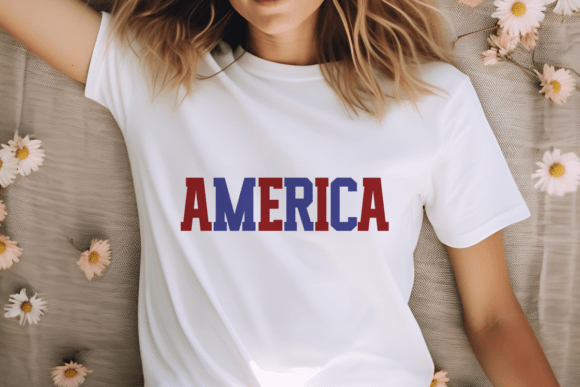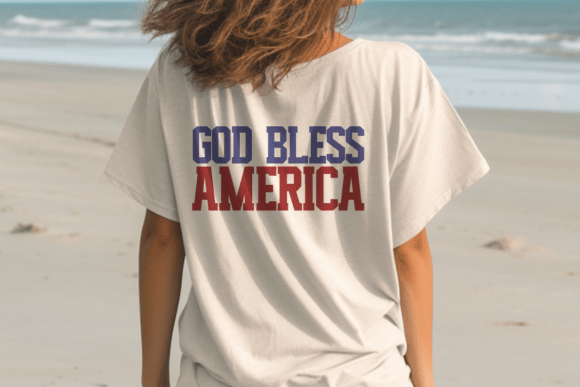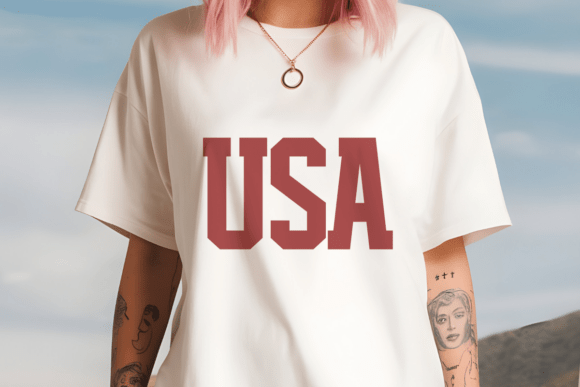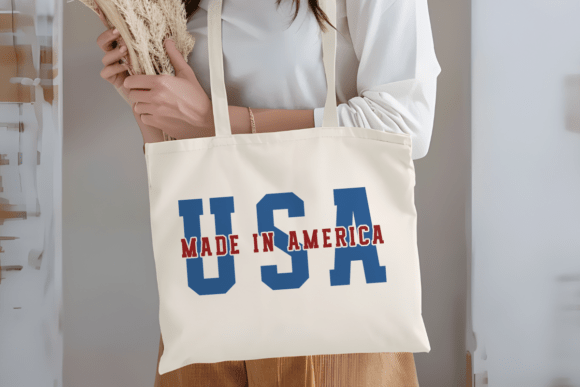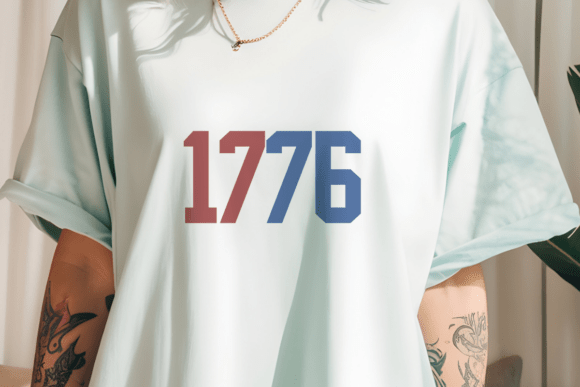
Introducing Fireworks Font: The Ultimate Patriotic Slab Serif for Your Creative Projects
Are you looking for a font that exudes confidence, patriotism, and a touch of modern flair? Look no further than the Fireworks Font, a bold and eye-catching slab serif font designed to elevate your creative projects. With its strong lines, square edges, and all-caps style, this font is perfect for making a statement in various applications, from print-on-demand items to DIY crafts.
What Makes Fireworks Font Stand Out?
Fireworks Font is a carefully crafted typeface that embodies the spirit of American patriotism, making it an ideal choice for festive events, military themes, and western-style layouts. Its distinctive features include:
- Bold and sturdy design: Fireworks Font boasts a robust and attention-grabbing appearance, perfect for headlines, titles, and display typography.
- Square edges and clean lines: The font’s geometric shape and smooth lines ensure a crisp, high-quality look that works well in both digital and print formats.
- All-caps style: The font’s uppercase design creates a sense of grandeur and authority, making it suitable for titles, slogans, and promotional materials.
Perfect for Print-on-Demand and DIY Projects
Fireworks Font is an excellent choice for various print-on-demand items, such as:
- 4th of July t-shirts and apparel: Add a patriotic touch to your Independence Day designs with this bold and festive font.
- Mugs and water bottles: Create eye-catching drinkware with Fireworks Font, perfect for commemorating special events or everyday use.
- Banners and posters: Make a statement with large-format prints, ideal for advertising, promoting events, or decorating your workspace.
Beyond print-on-demand, Fireworks Font is also suitable for:
- Sublimation projects: Create vibrant and durable designs for sublimation printing on materials like ceramics, glass, and fabric.
- Cricut cutting machines: Use Fireworks Font to create custom vinyl decals, iron-on designs, and paper crafts with your Cricut machine.
- DIY crafts and scrapbooking: Add a touch of Americana to your handmade projects, such as cards, invitations, and journal pages.
Tips for Using Fireworks Font Effectively
To get the most out of Fireworks Font, consider the following tips:
- Pair with complementary fonts: Combine Fireworks Font with contrasting fonts to create visual interest and hierarchy in your designs.
- Experiment with colors: Try Fireworks Font with bold, bright colors to amplify its patriotic and festive vibe.
- Use for display typography: Take advantage of Fireworks Font’s bold design and use it as a statement piece in your layouts.
Fireworks Font is a versatile and attention-grabbing slab serif font that’s perfect for designers and crafters looking to add a touch of American patriotism to their projects. Its bold design, square edges, and all-caps style make it an excellent choice for various applications, from print-on-demand items to DIY crafts. With Fireworks Font, you can create stunning and memorable designs that are sure to stand out.